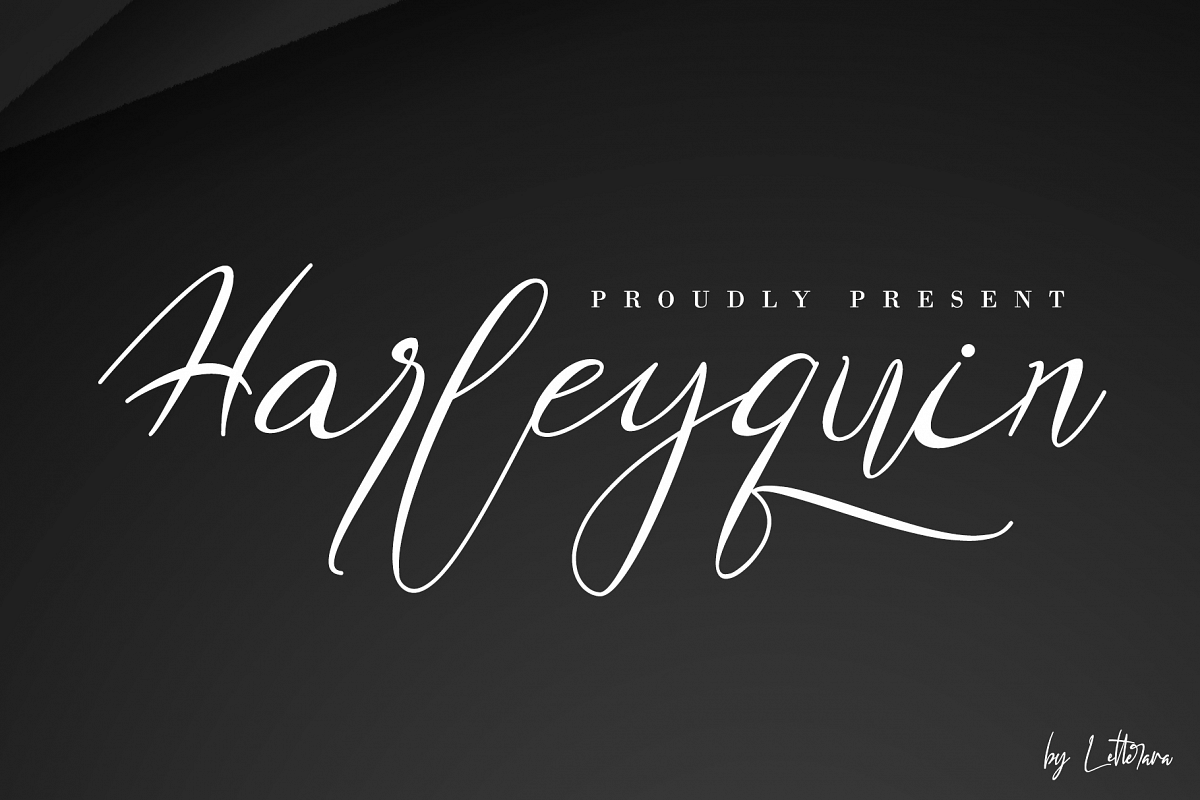
Sweet, charming and full of authenticity: Harleyquin is a
one-of-a-kind typeface with a personal feel. use titling to give different
letter effects, making it even more elegant